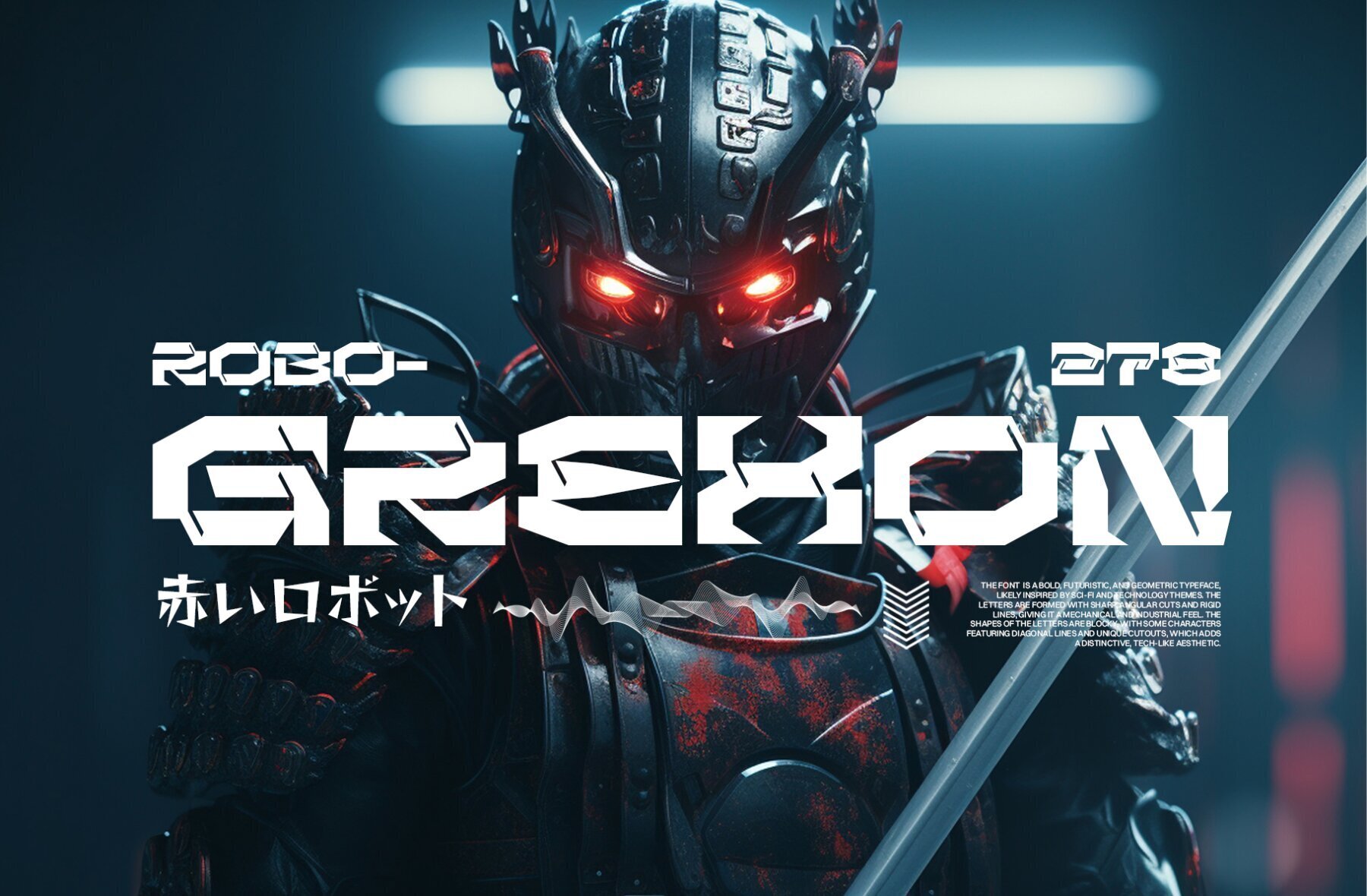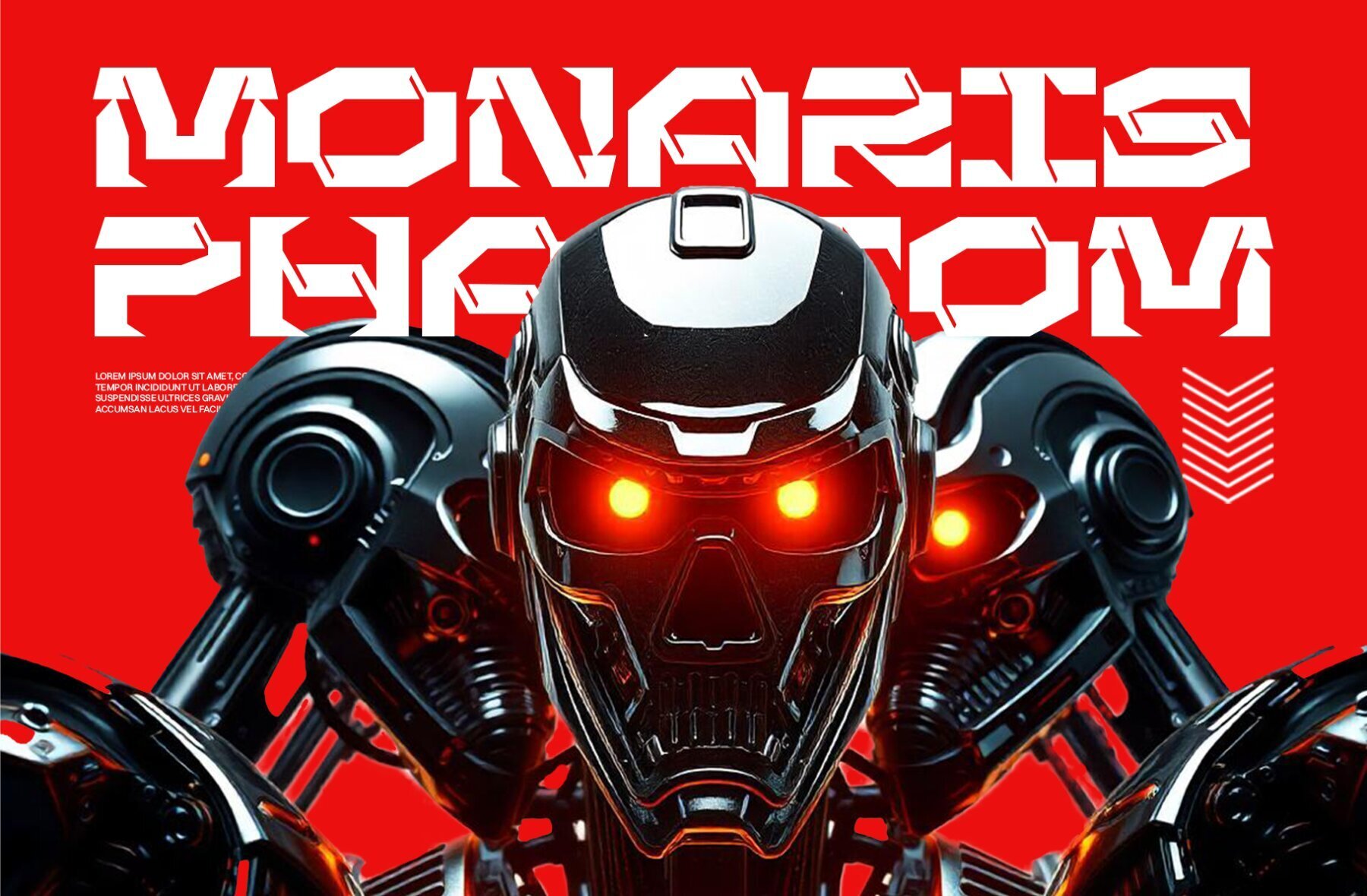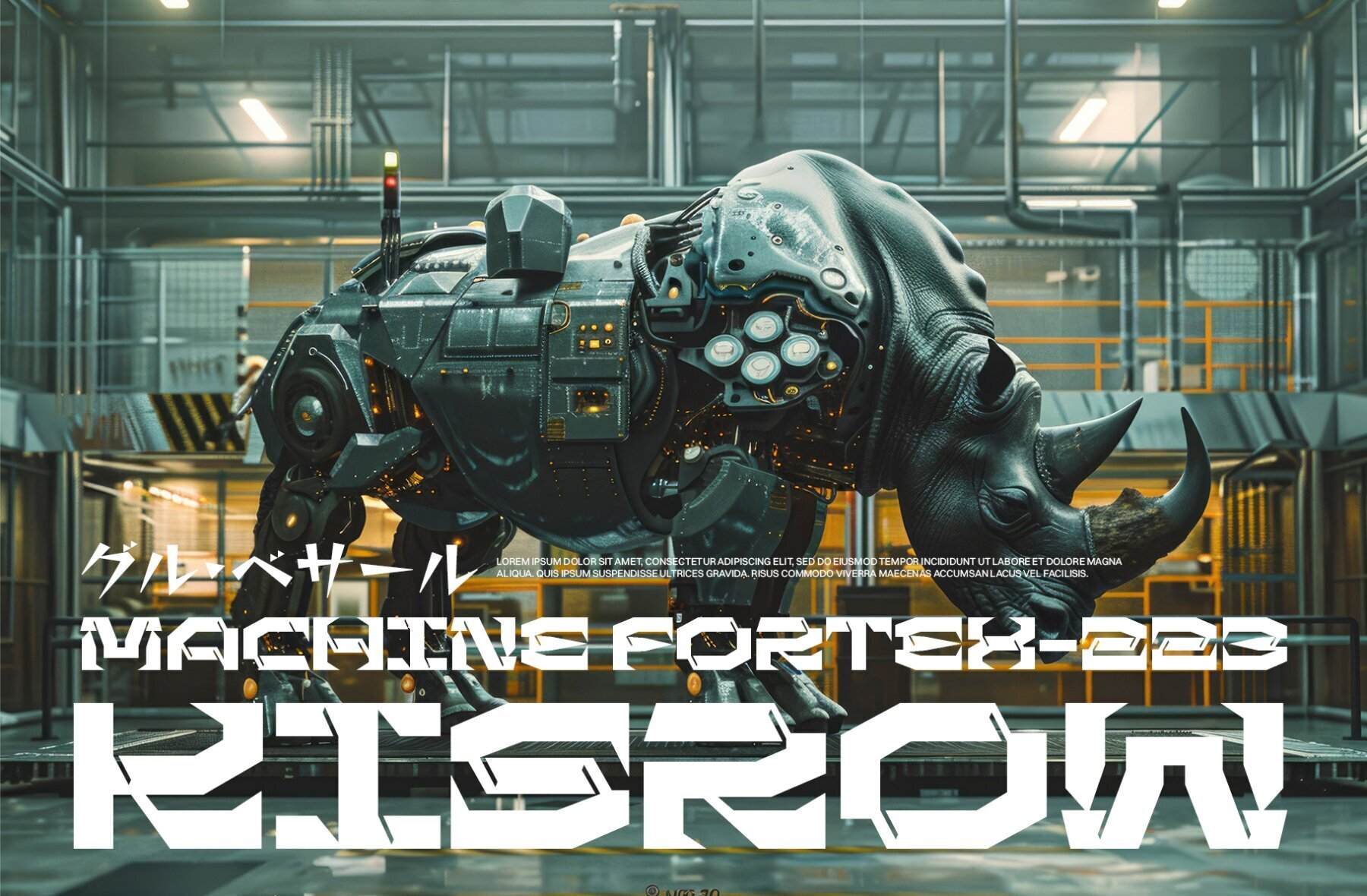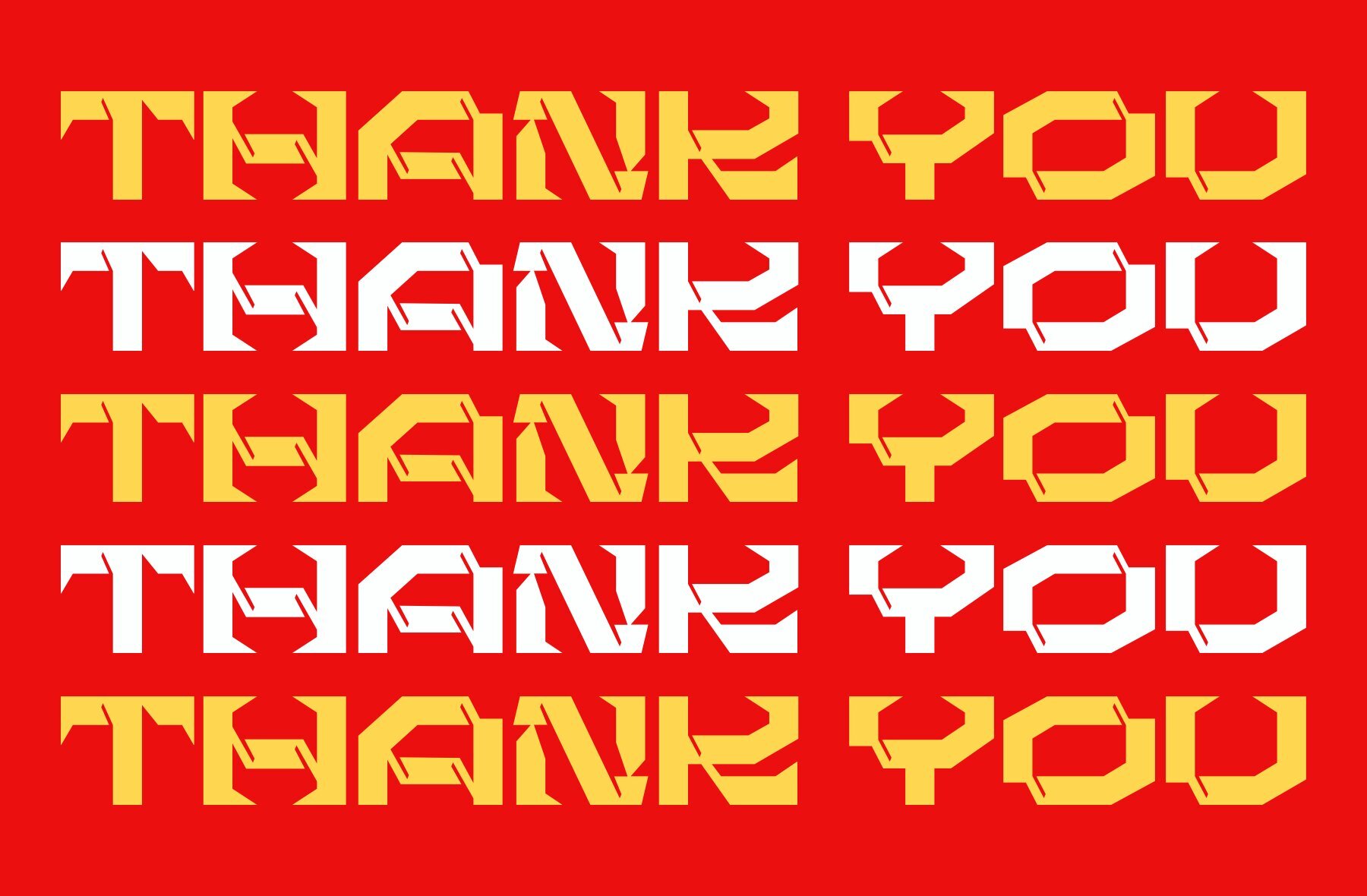
Grexon Font
Grexon Regular
Grexon is a bold techno-style font, featuring a strong, futuristic design with thick, solid strokes. Its geometric and angular elements create a modern, high-tech feel, making it perfect for titles and headlines that demand a powerful visual impact.
Ideal for projects in digital, sci-fi, or technology genres, Grexon offers a dynamic aesthetic that stands out. Its commanding presence enhances any design requiring a bold, distinctive look, making it a great choice for designers looking to make a statement.